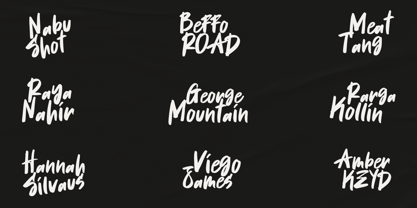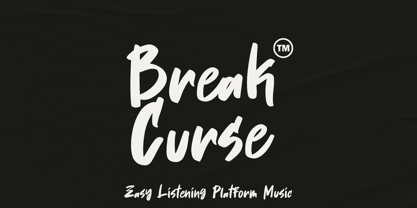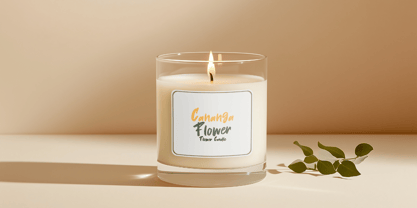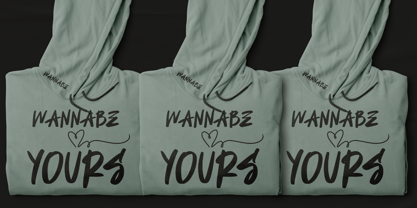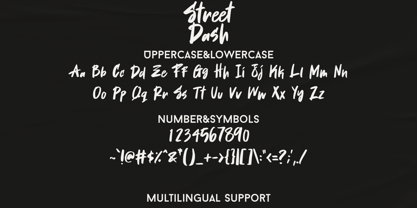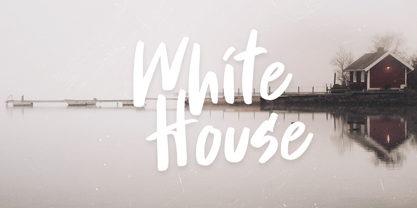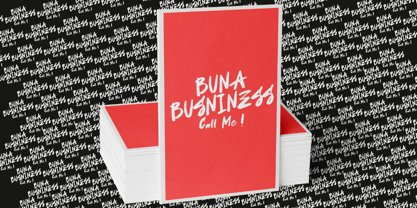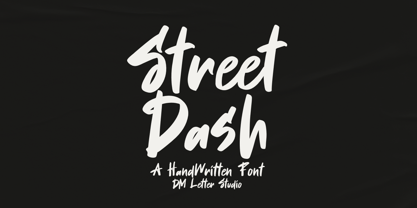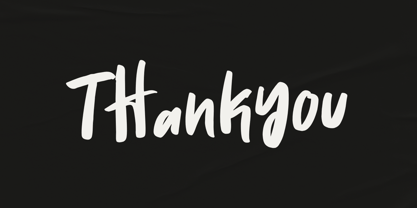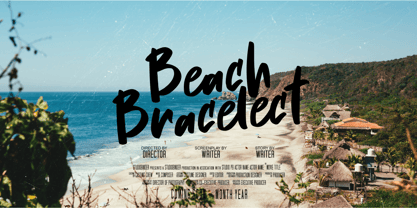
Street Dash
The Street Dash Font Family was designed by Dimas Prasetyo and published by DM Studio. Street Dash contains 1 styles. More about this family
Street Dash is a bold, handwritten brush font designed for those who need to merge style with purpose. With its dynamic strokes and clean brush finish, Street Dash is perfect as a corporate logo brush font, giving brands a personal, energetic edge that still feels professional.
Whether you’re building a fashion brand, modern café identity, creative agency mark, or a tech startup’s youthful branding, this font bridges the gap between expressive freedom and corporate clarity. The handcrafted vibe adds a layer of authenticity—ideal for logos, packaging, posters, apparel, and social media graphics.
With full uppercase and lowercase sets, multilingual support, and optimized kerning, Street Dash ensures your brand voice is loud, consistent, and unmistakably cool.
Features:
• Uppercase & Lowercase Characters
• Numbers & Punctuation
• Smooth Handwritten Brush Style
• Multilingual Support
Best For:
• Corporate logos with personality
• Branding projects
• Clothing & apparel labels
• Social media graphics
• Urban product packaging
• Streetwear branding
• Café menus and business signage